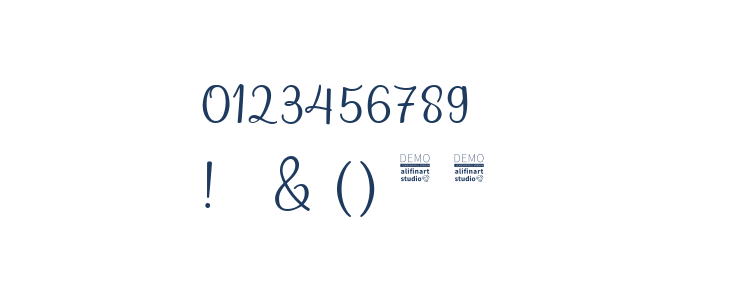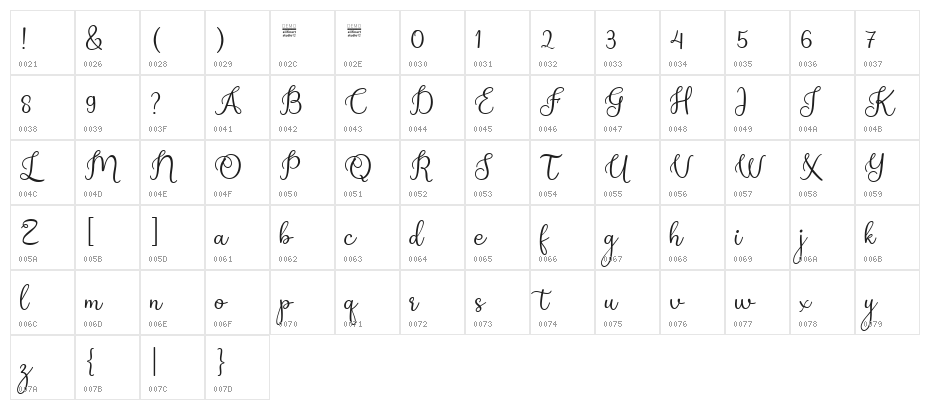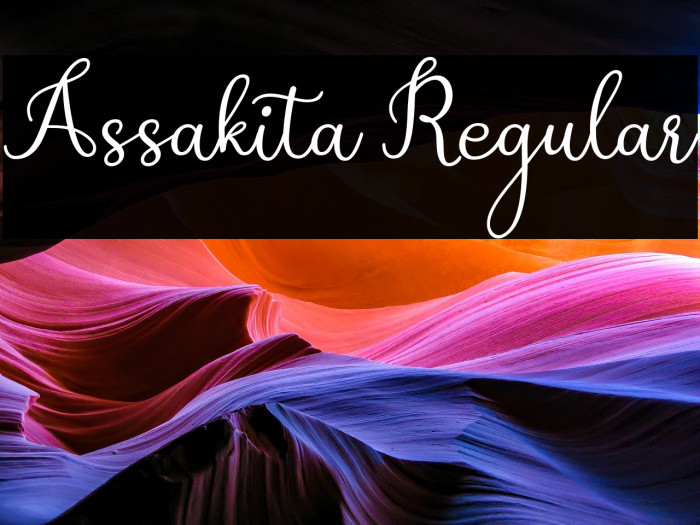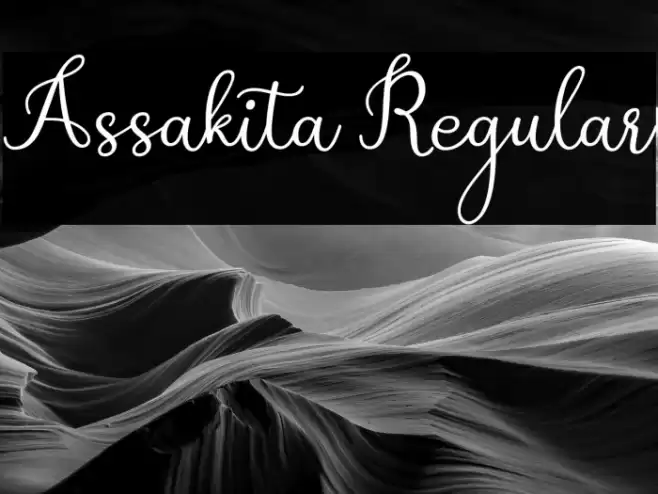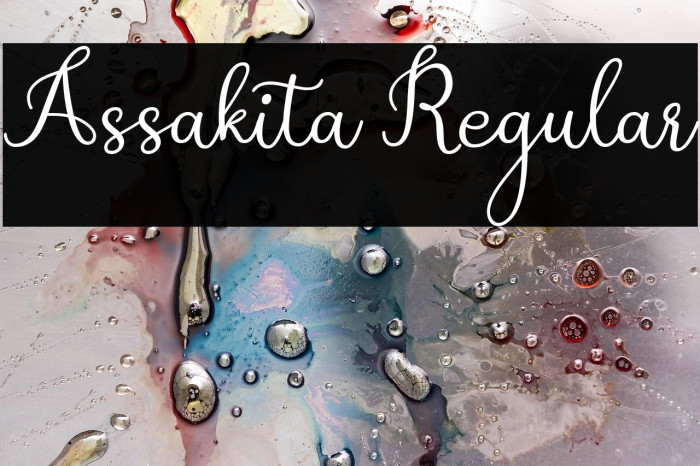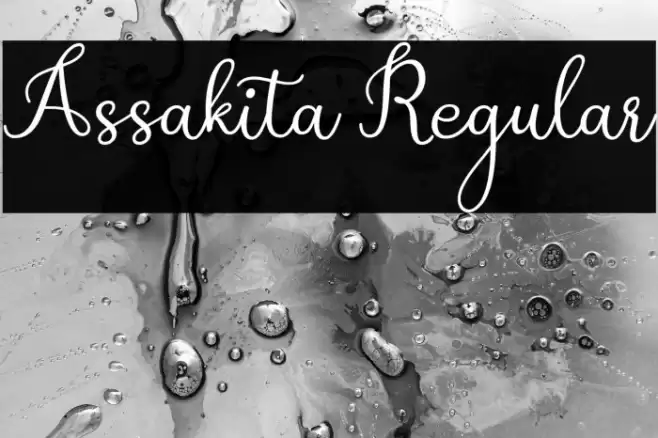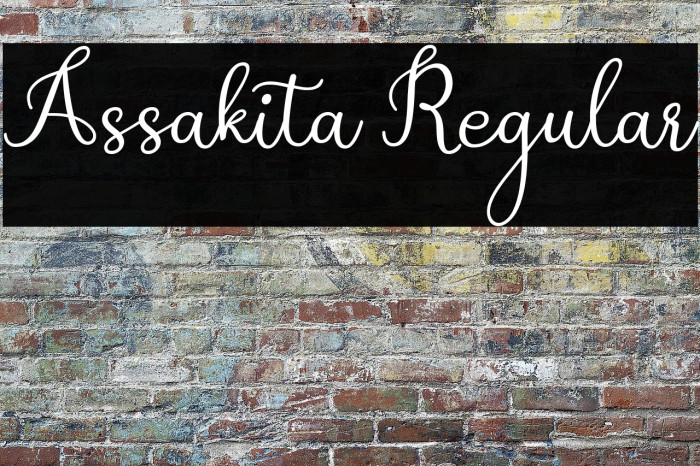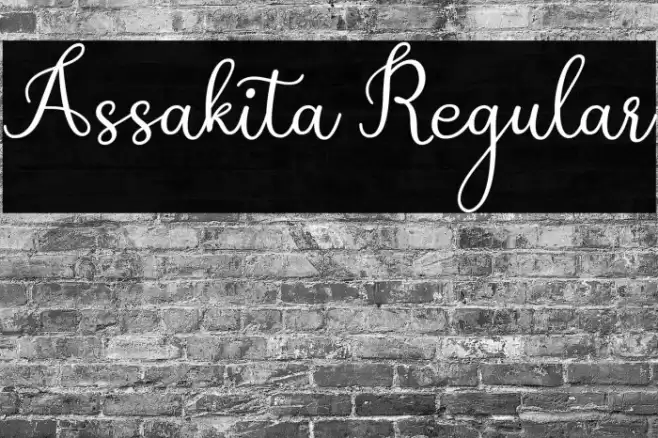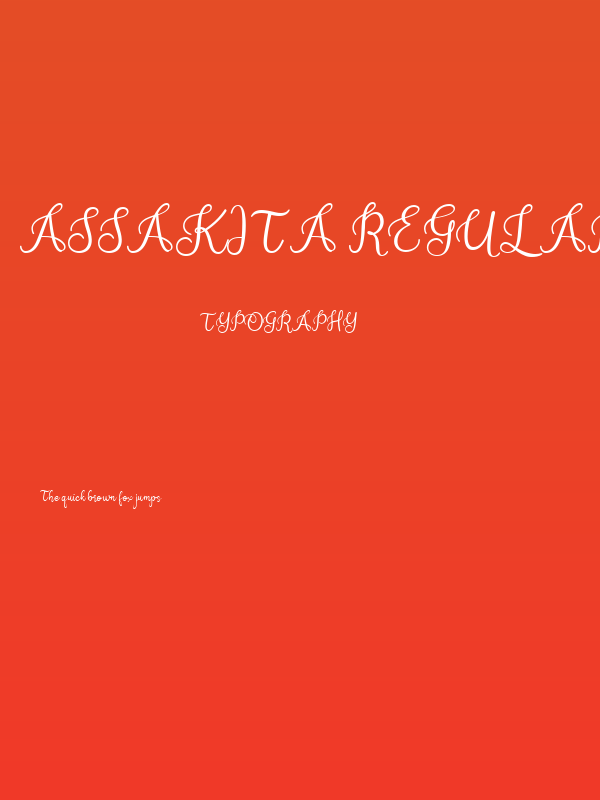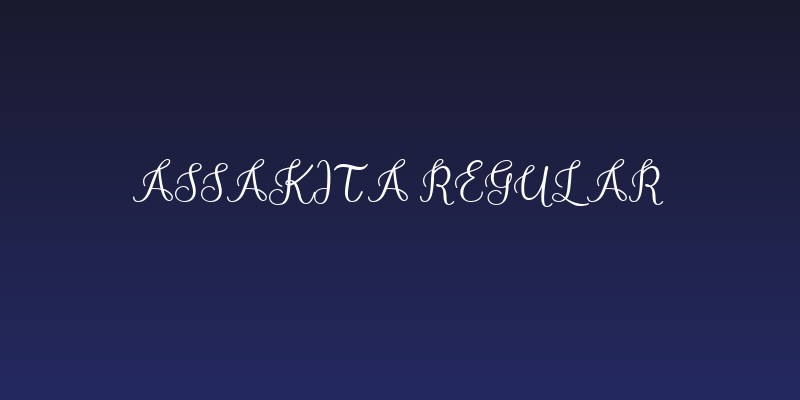
Assakita Regular Font
Assakita Regular Description
This font features an elegant and flowing script style, characterized by its smooth, cursive lines and graceful curves. The uppercase letters are ornate, with intricate loops and swirls that add a touch of sophistication. The lowercase letters maintain a consistent flow, making them highly legible while retaining their decorative appeal. Numbers and special characters are designed to complement the overall style, ensuring a cohesive look across all text elements. This font exudes a sense of elegance and charm, making it suitable for a variety of creative projects.
| Proposed Projects | Ideal for wedding invitations, greeting cards, branding, and elegant logo designs. |